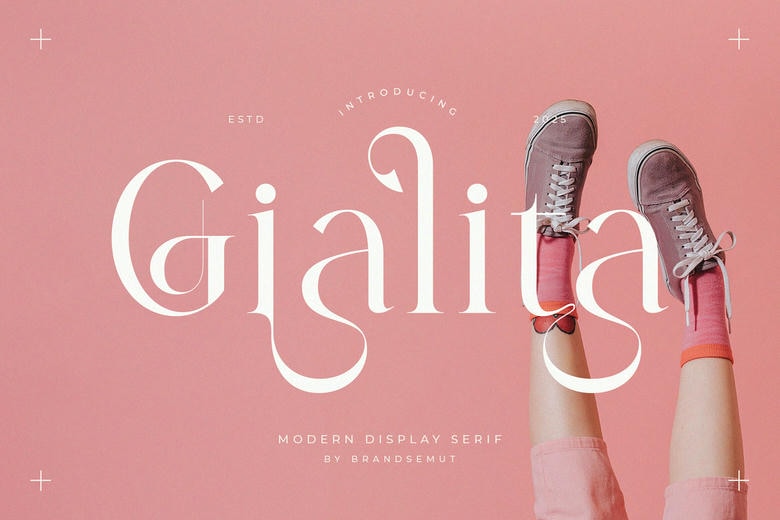
Gialita Font
Gialita is a classy modern display serif font that is capable of bringing together whimsical elegance and the modern sophistication so easily. Exquisitely stylish with graceful lines and contrast of the artistry of stroke, as well as carefully designed ligatures, Gialita adds personality to any design. Any of the letterforms can be blended with mischievous sophistication, and is thus a perfect typeface to use in projects that challenge at the same time to justify ingenuity and impeccability.
Ideally designed to suit precision driven designers with an eye on aesthetics, Gialita works a treat on both print and digital media. Its decorative serifs and fluid alternates produce dynamic visual rhythm that can be used in logos, editorial layouts, fashion branding and luxury packaging. This font is elegant without being hard to read regardless of whether you are putting together a fancy wedding invitation or an attention grabbing headline.
Gialita Stylish Serif Font